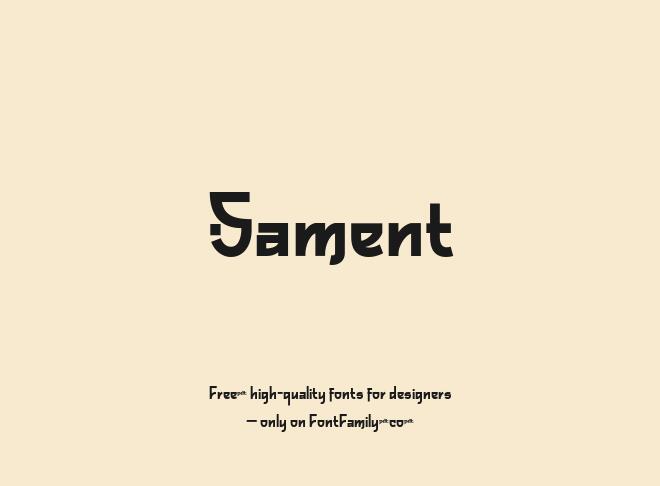
Sament Font
Sament Font is a unique typeface designed by Samuel Design Studios. It is characterized by its modern, rounded, and display qualities that make it a perfect font for various design applications. The font's sleek curves and clean lines provide an elegant and contemporary feel to any design. Its rounded characteristics make it aesthetically pleasing and easy to read, making it ideal for logos, headlines, and branding purposes. Compared to other fonts, Sament Font stands out with its distinctive style and versatility. It can easily adapt to both formal and informal contexts, making it a go-to choice for designers. Its sans serif style gives it a modern and minimalist appeal that is current with today's design trends. Sament Font is not just a typeface, it's a tool that can transform and elevate your design to new heights.
Categories | Modern Rounded Display |
Author | Samuel Design Studios |